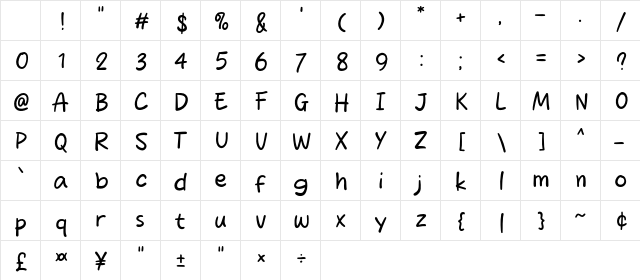
Hello Mickeys Regular
Foundry: Khurasan
Designer: Khurasan
Design Context for Hello Mickeys
Hello Mickeys is a composed and adaptable typeface that performs quietly and consistently across a wide range of design contexts.
Pro Tip: Use Hello Mickeys in both headline and body roles to test its range before committing to a single application.